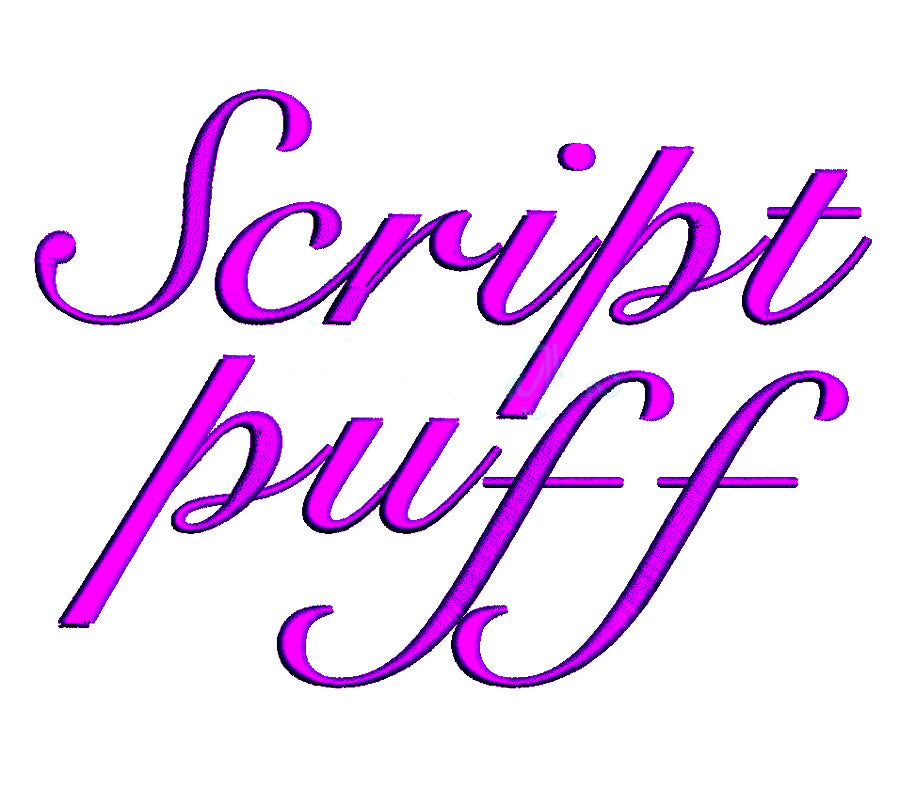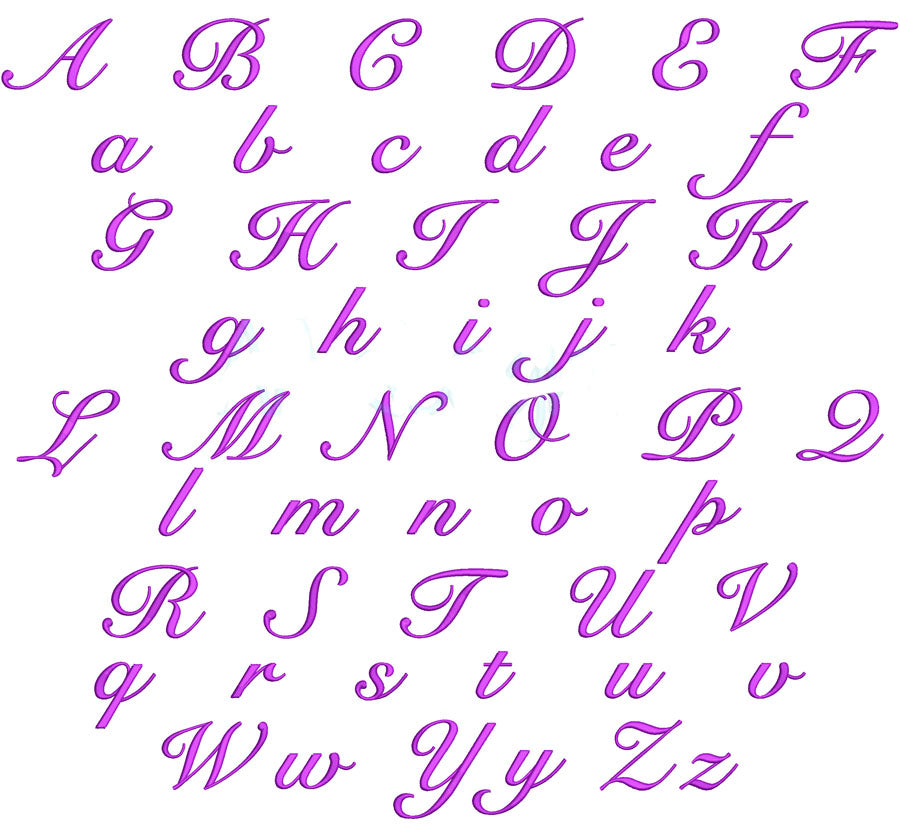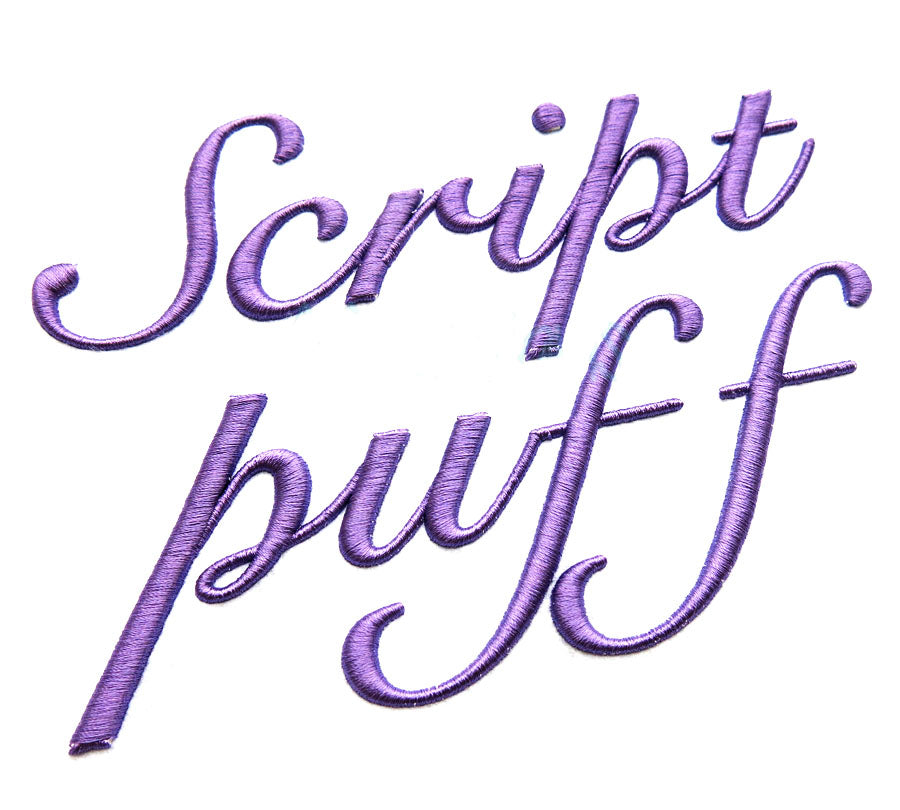
3D Puff Foam Embroidery Font | Script Letters | BX PES DST
Create bold, raised lettering with this 3D Puff Foam Embroidery Font. These puffy foam letters for embroidery are ideal for caps, hats, bags, and personalized accessories.